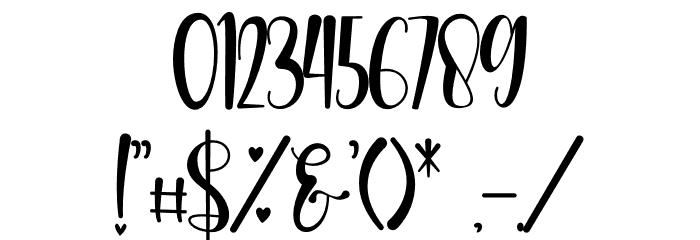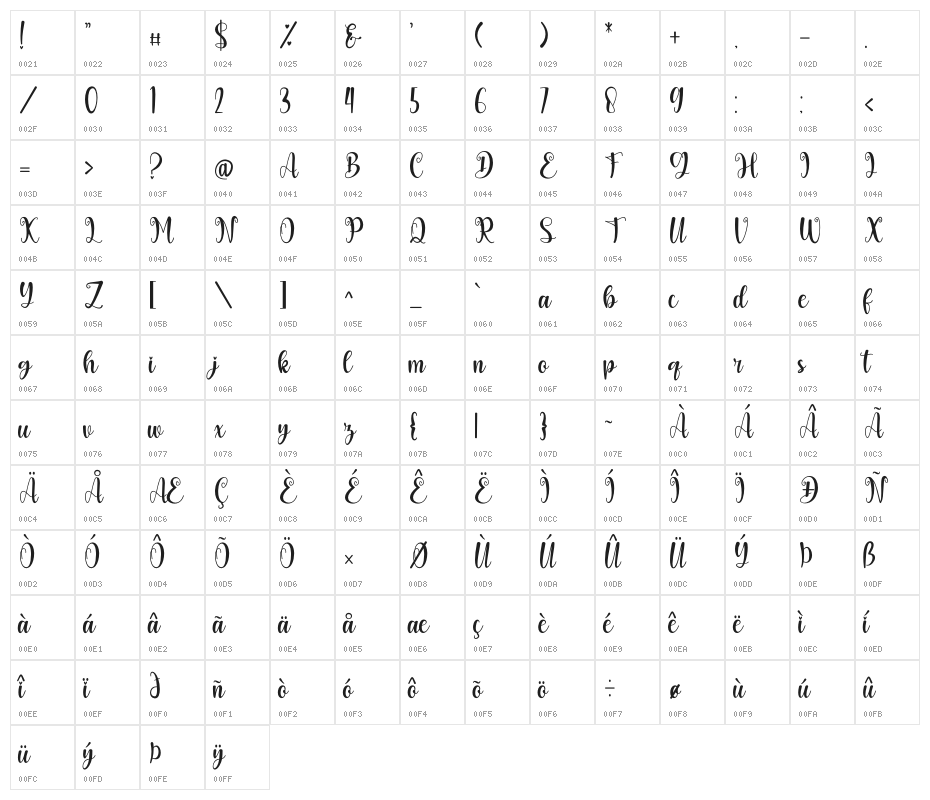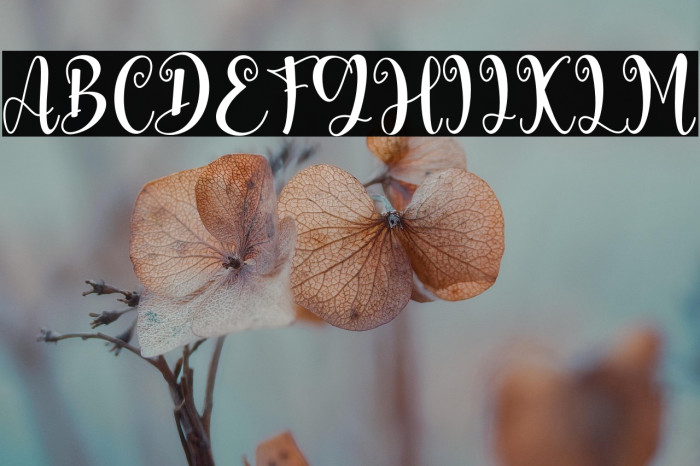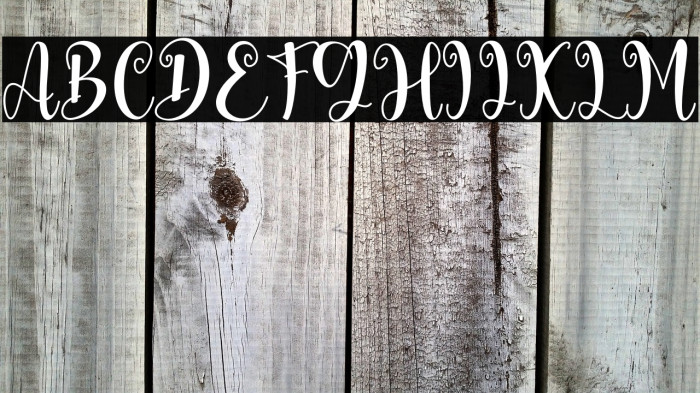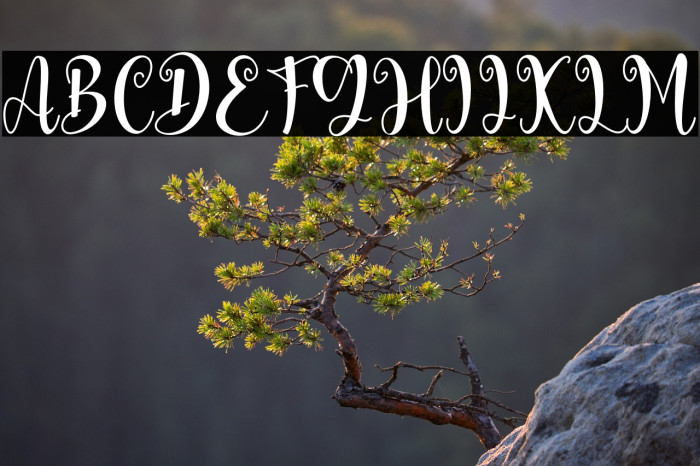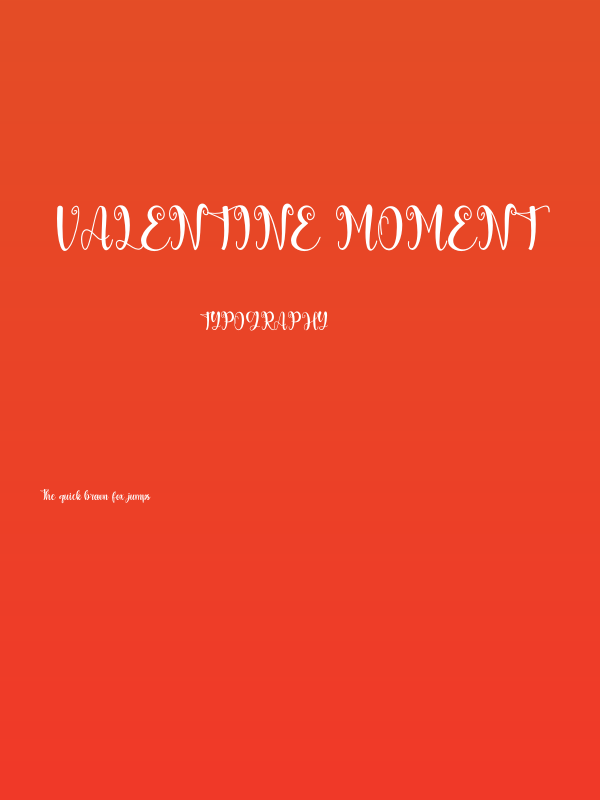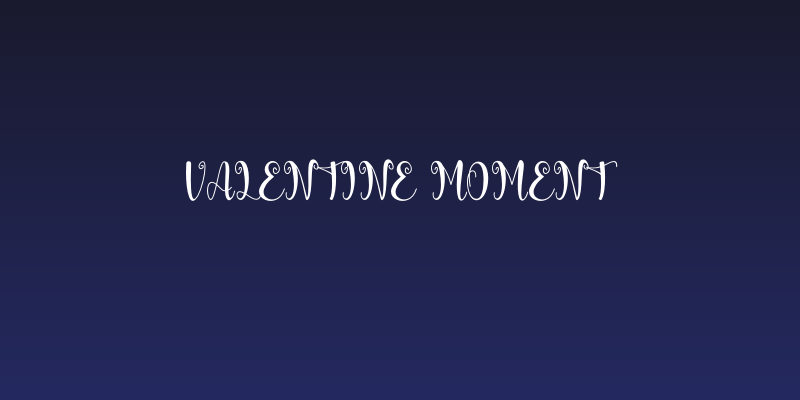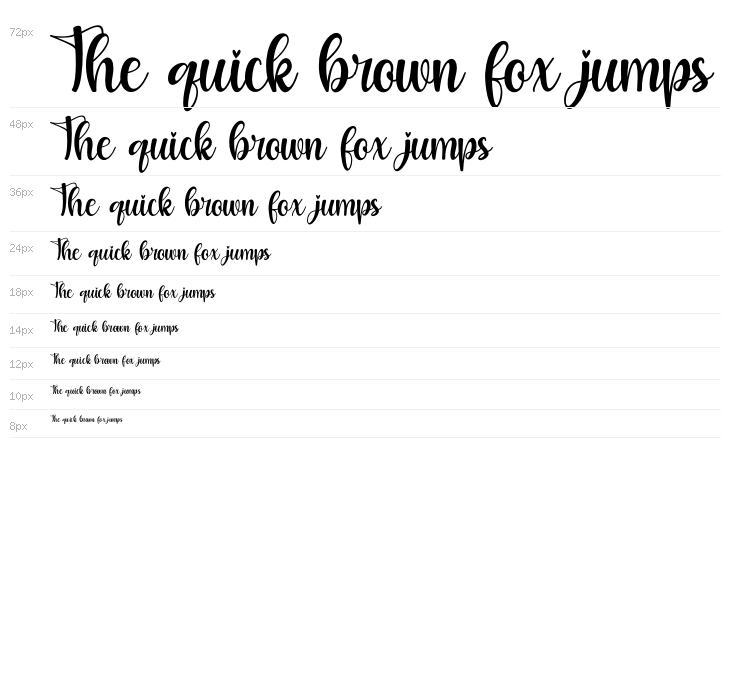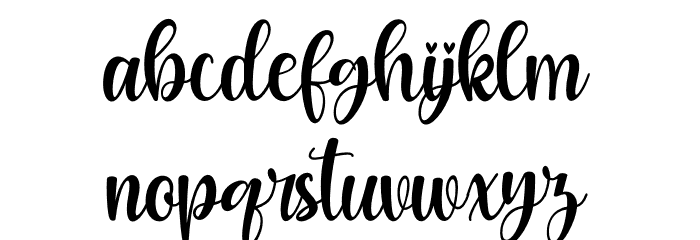
Valentine Moment Font
Valentine Moment Description
This font exudes a romantic and whimsical charm, characterized by its flowing, cursive style. The uppercase letters feature elegant loops and swirls, giving them a decorative flair, while the lowercase letters maintain a consistent, smooth flow. The numerals are equally stylish, with a touch of playfulness in their design. Special characters are adorned with unique embellishments, enhancing the font's overall aesthetic appeal. The strokes are moderately thick, providing a balanced contrast that ensures readability while maintaining an artistic touch.
| Overall Style | Romantic, Decorative |
| Use Case | Headlines, Invitations, Logos |
| Proposed Projects | Ideal for wedding invitations, greeting cards, romantic branding, and decorative signage. |